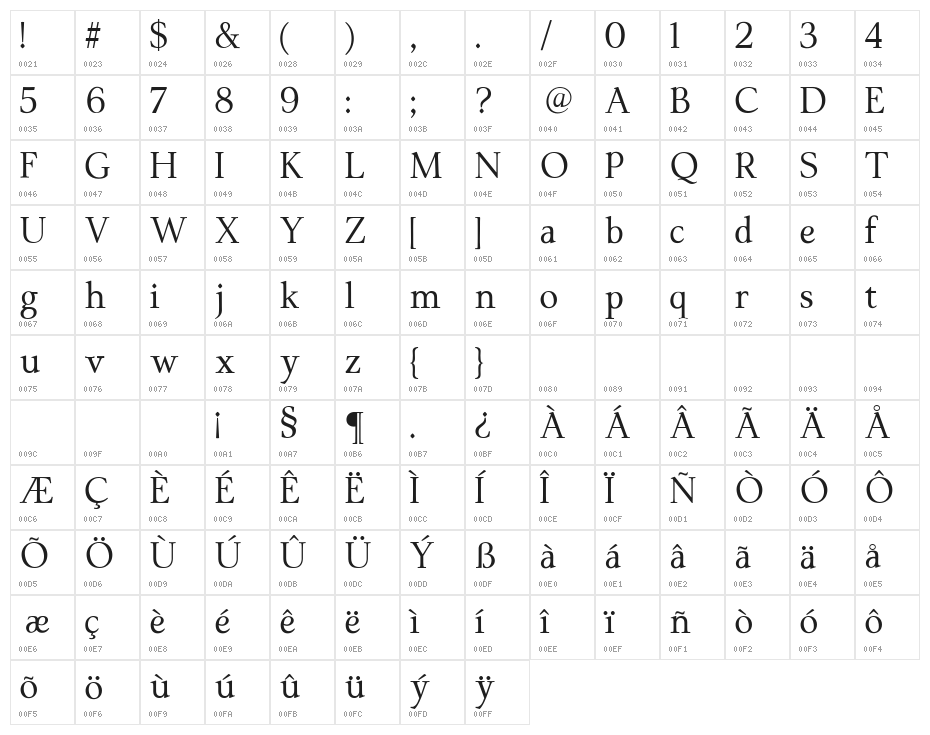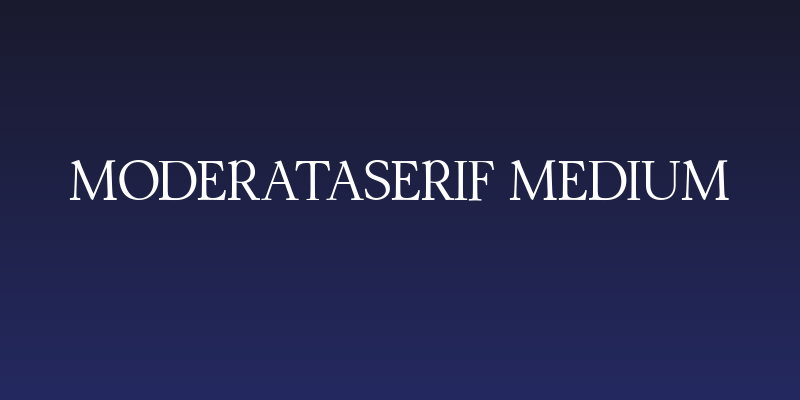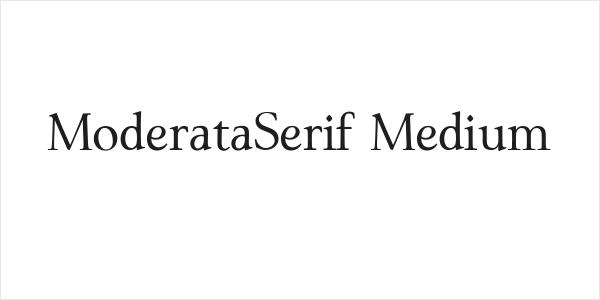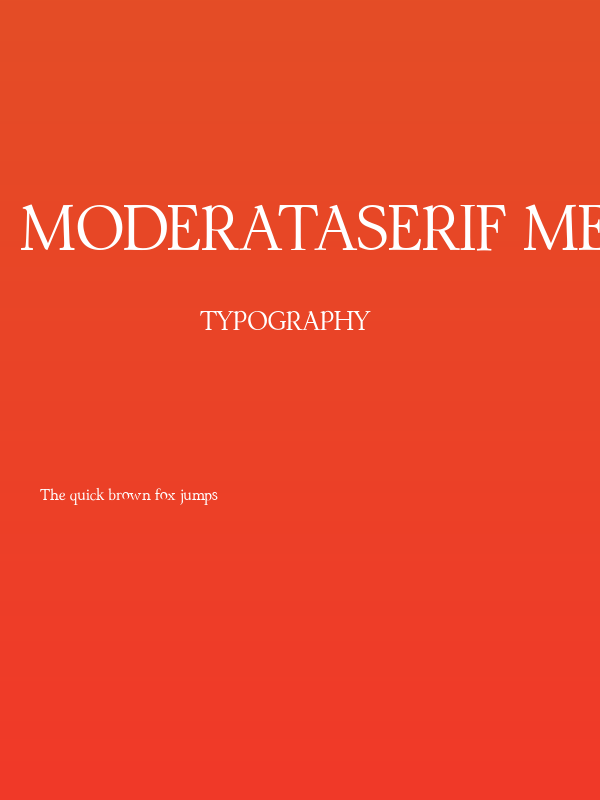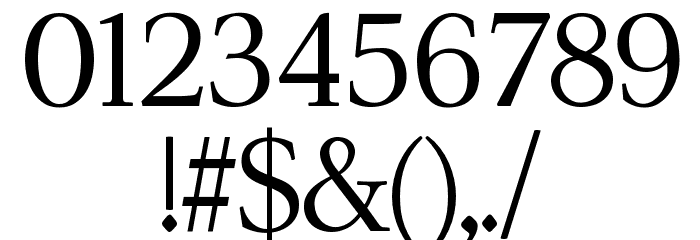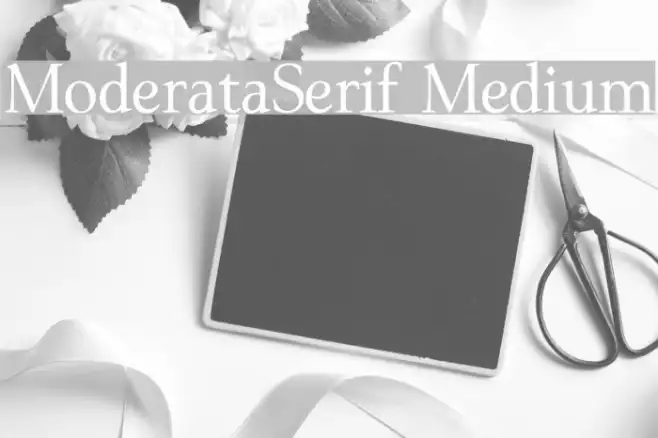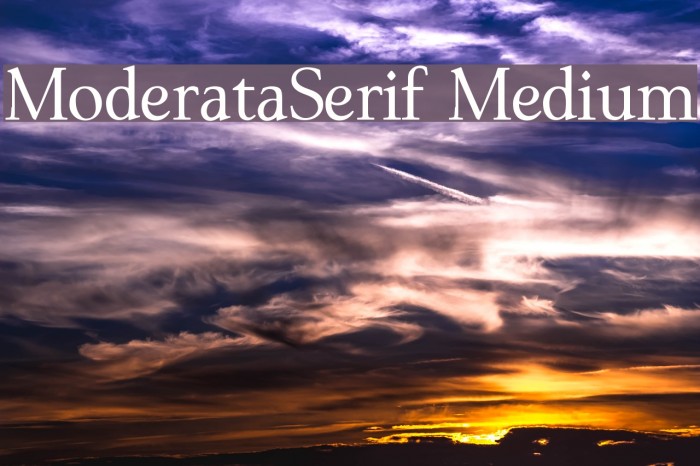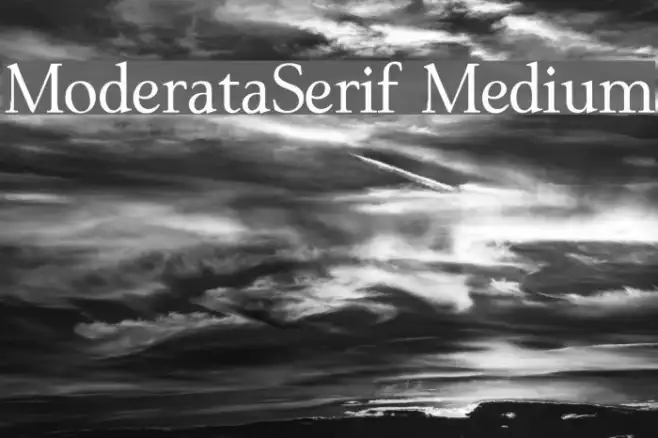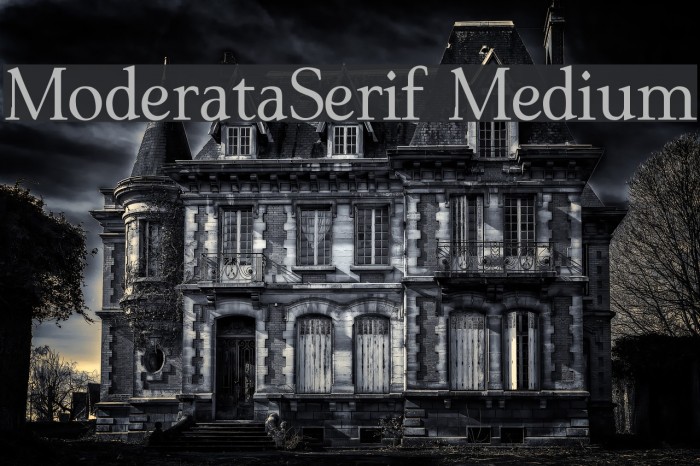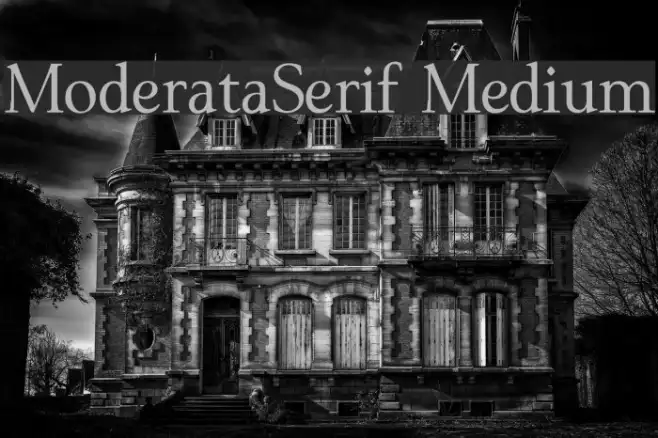
ModerataSerif Medium Font
ModerataSerif Medium Description
This font exhibits a classic serif style with a medium weight, offering a balanced and readable appearance. The characters are well-defined with moderate contrast between thick and thin strokes, enhancing legibility. The uppercase letters are slightly taller than the lowercase, providing a traditional and formal look. The numerals are proportional, aligning well with the overall design. Special characters are distinct and maintain the serif style, ensuring consistency across all glyphs. The font's structure is clean and precise, making it suitable for both digital and print media.
| Use Case | Body text, Editorial, Branding |
| Proposed Projects | Ideal for editorial design, book typesetting, formal invitations, and corporate branding. |